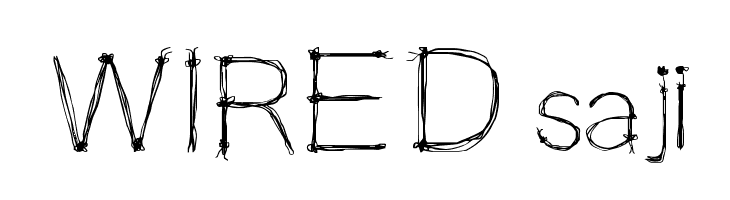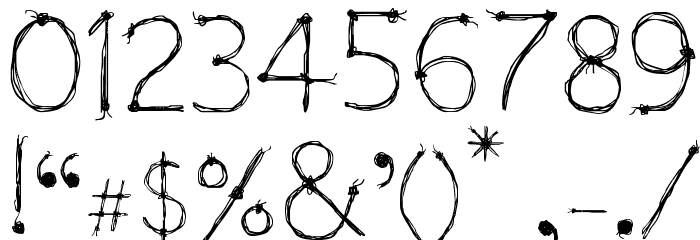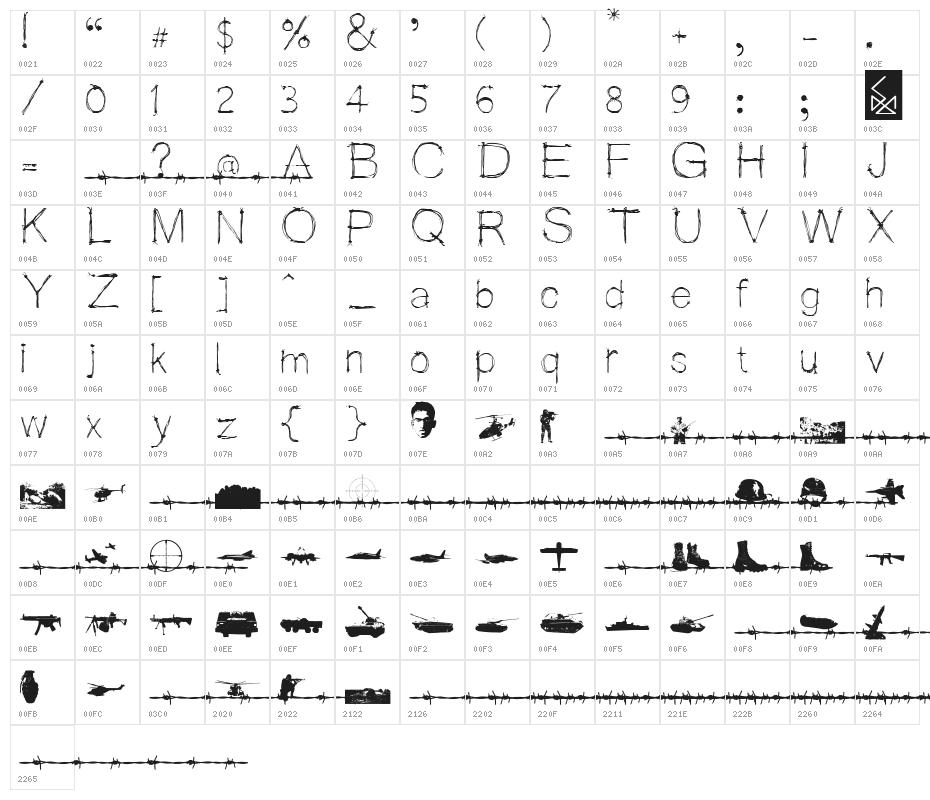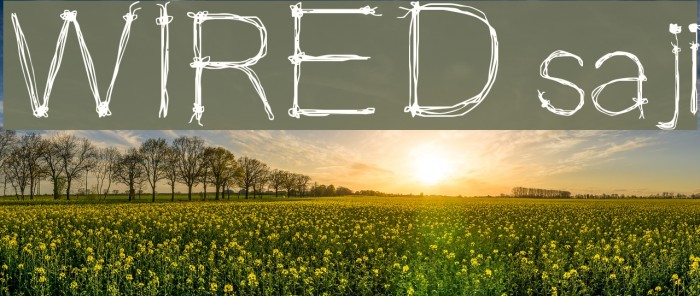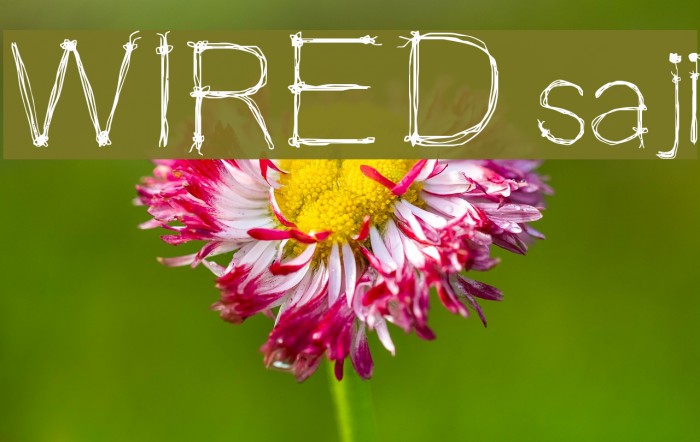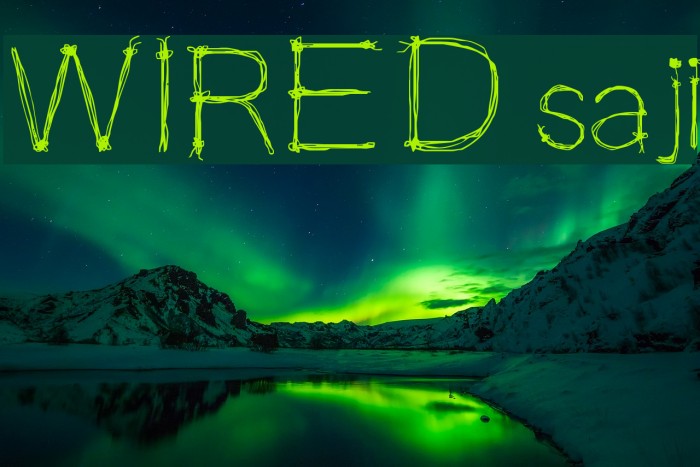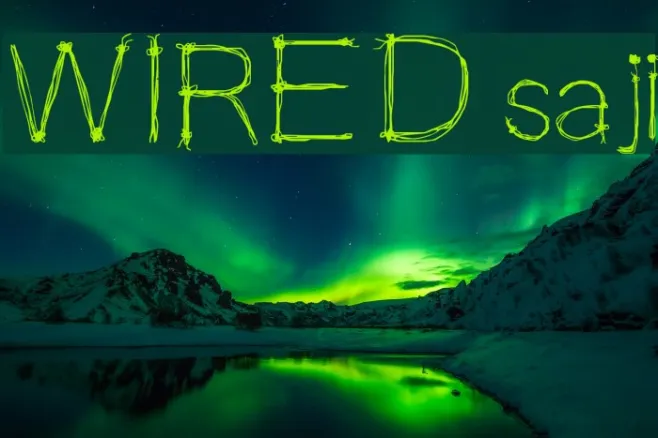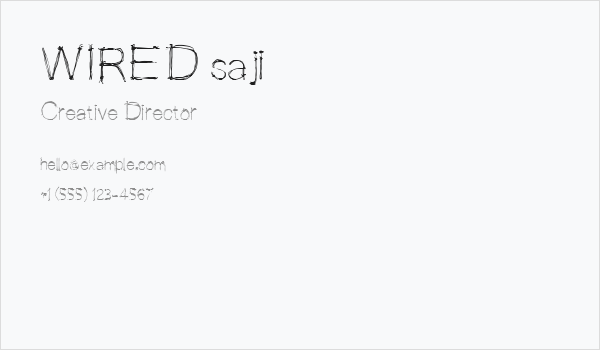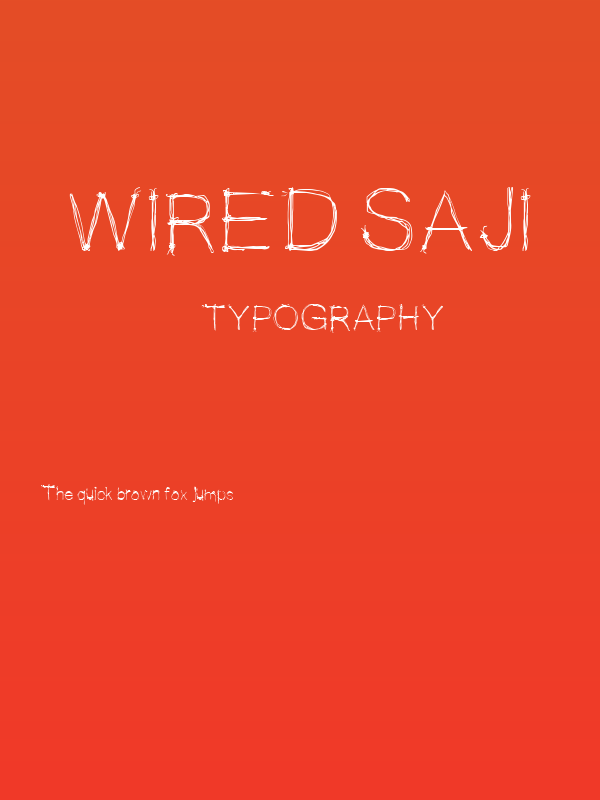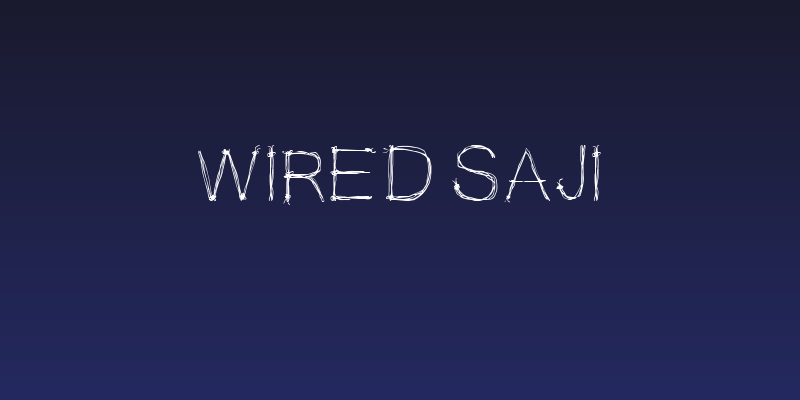
WIRED saji Font
WIRED saji Description
This font features a unique, hand-drawn style that mimics the appearance of barbed wire. Each character is crafted with intricate details, giving it a rugged and edgy look. The lines are uneven and have a sketch-like quality, adding to the font's distinctive personality. The uppercase and lowercase letters maintain a consistent style, with sharp edges and pointed ends that resemble the twists and turns of wire. Numbers and special characters follow the same design, ensuring a cohesive appearance across all text elements. This font is ideal for projects that require a bold, unconventional aesthetic.
| Proposed Projects | Ideal for album covers, posters, and branding projects that require a bold, unconventional aesthetic. |